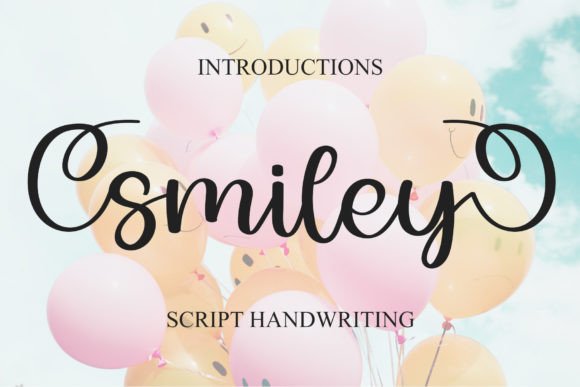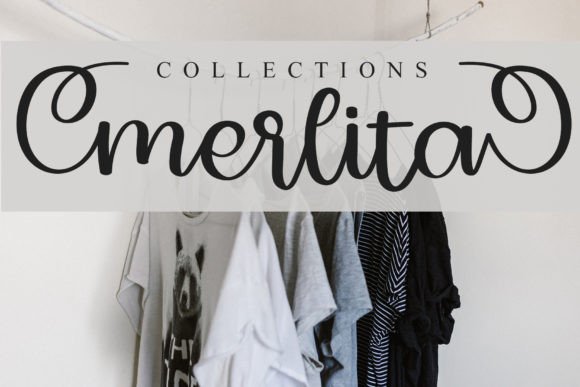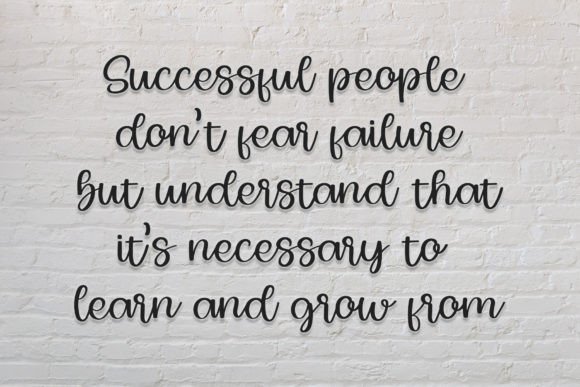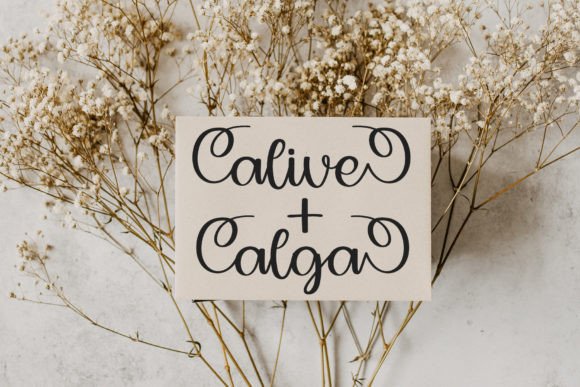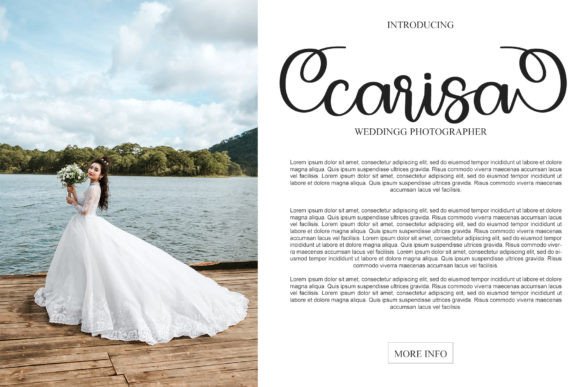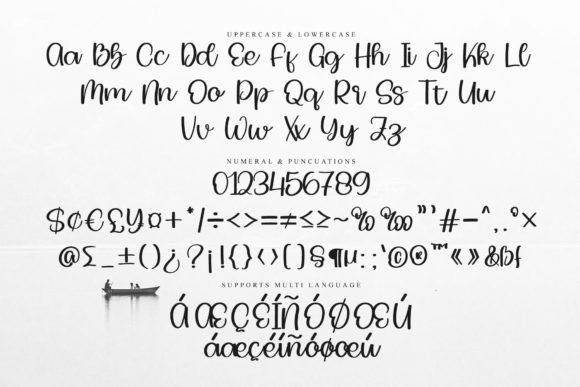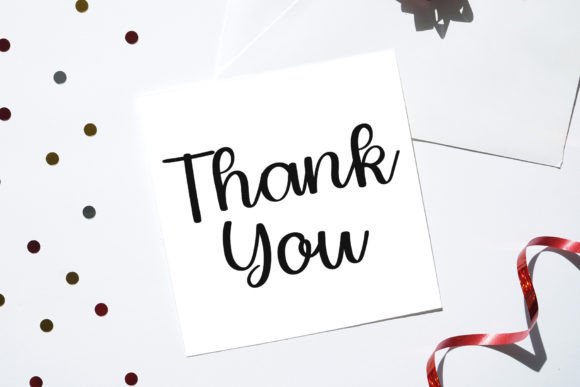
Smiley Font
About Smiley Font
Smiley Font is a sweet cursive handwritten script designed to add elegance and joy to any creative project. With smooth strokes and a gentle flow, this typeface combines romance with casual charm. Because of its versatile style, Smiley Font is suitable for weddings, logos, branding, greeting cards, fashion designs, and marketing promotions.
A Sweet Handwritten Typeface with Cursive Elegance
Handwritten fonts often bring personality to creative work, and Smiley Font does this with refined cursive details. Its flowing curves provide sophistication, while its casual rhythm makes text approachable and fun. Moreover, its romantic touch adapts beautifully to both modern and traditional layouts. As a result, this script typeface is an excellent choice for designers who want warmth and elegance together.
Perfect Typeface for Weddings and Invitations
For wedding stationery and invitations, Smiley Font is a perfect match. For example, it can turn a simple wedding card into a keepsake full of grace and love. In addition, it works wonderfully for thank-you notes, birthday greetings, and seasonal cards. Because of its joyful energy, every design feels more heartfelt and memorable.
A Script Typeface for Logos and Branding
Brands and creatives can also benefit from the stylish personality of Smiley Font. Logos, product packaging, and fashion-related branding gain sophistication and individuality with this script. Furthermore, on social media, it enhances posts, stories, and marketing graphics with a handwritten appeal. When paired with minimalist sans serif fonts, SmileyFont strikes a balance between professionalism and creativity.
Another advantage of SmileyFont is its adaptability across formats. In print, it works beautifully on magazines, posters, brochures, and merchandise. Digitally, it enhances websites, blogs, and presentations with a romantic handwritten style. Since it remains legible at both small and large sizes, this script is practical for a wide range of creative applications.